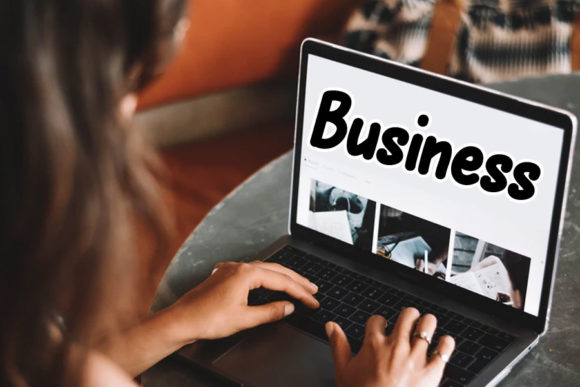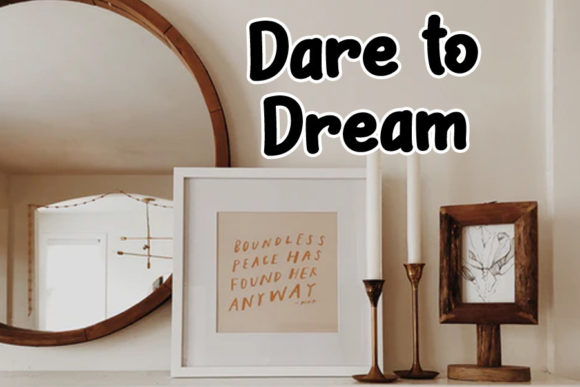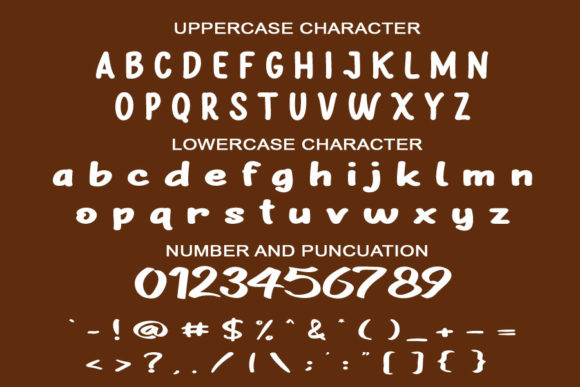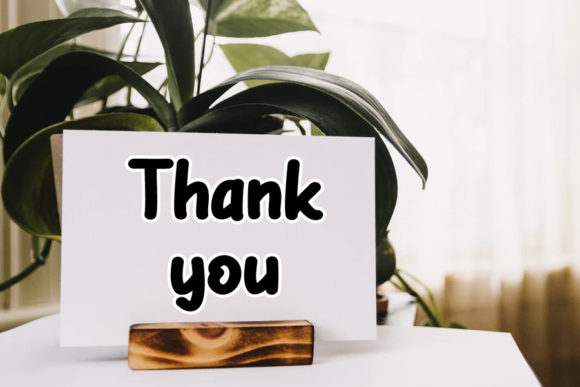
Introduction to Madonia Font
You know that moment when you’re brainstorming ideas for a creative project, and the perfect design element suddenly pops into your head? For many designers, it’s the moment when the perfect font becomes the game-changer. This is exactly what happens when you discover the Madonia Font – a clean and paint-brushed handwritten font that instantly adds a touch of youth and joy to any design.
Whether you’re crafting a party invitation, planning a gathering, or working on a design project that requires a dash of whimsy, the Madonia Font is an invaluable resource. With its high-quality design and transparent background, it’s a free download that’s sure to elevate your creative work to the next level.
Key Features of Madonia Font
- High-quality font suitable for various creative projects, including graphic design, digital art, and web design.
- Comes with a transparent background, allowing for seamless integration with any design element.
- Features a unique and modern design, perfect for adding a touch of elegance to any creative project.
Honest Review: Madonia Font
I recently had the chance to experiment with the Madonia Font, and I must say it’s been a delightful addition to my design resources. The high quality of this font is immediately apparent, making it perfect for any creative project that demands a touch of elegance.
- ✨ Elegant and sophisticated design that adds a touch of sophistication to any design project.
- ✨ High quality and clear typography that’s easy to read.
One of the standout features of the Madonia Font is its versatility. It’s perfect for both digital and print designs, and its transparent background makes it easy to overlay on any image or design element.
- Limitations:
- ⚠️ Limited character set, which may not be suitable for longer texts.
- ⚠️ Not as extensive a character set as some other fonts, which may limit its use in certain projects.
Overall, the Madonia Font is a solid addition to any designer’s toolkit. Its high quality, elegant design, and free download make it a great resource for any creative project. While it may have some limitations, it’s well worth considering for your next design project.
Getting the Most Out of Madonia Font
To get the most out of the Madonia Font, experiment with different font sizes, colors, and combinations. This font is highly versatile and can be used for a wide range of design projects.
The Madonia Font is commonly used for:
- Print design and publishing
Can I use the Madonia Font for a high-quality creative project?
Yes, the Madonia Font is a high-quality design resource that’s perfect for a wide range of creative projects, including logos, branding, and digital graphics. Its clean and modern design makes it an excellent choice for any project that requires a professional look.
Does the Madonia Font have a transparent background?
Yes, the Madonia Font has a transparent background, making it easy to use in a variety of design scenarios, including graphics with complex backgrounds or transparent overlays.